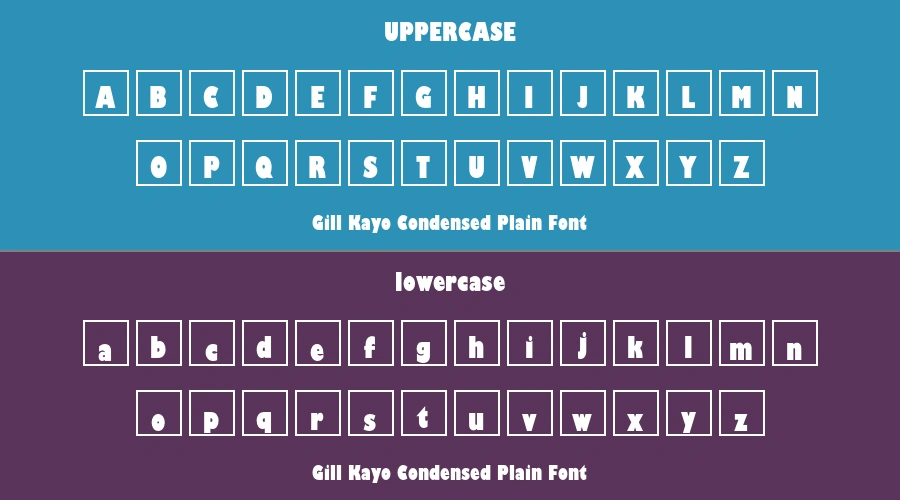
About Gill Kayo Condensed Plain Font
Designed with precision, Gill Kayo Condensed Plain Font merges clean lines with craftsmanship in every character. This versatility makes it particularly effective for product naming, where personality and industrial strength directly impact communication quality. Each letterform demonstrates meticulous craftsmanship.
Technical excellence shines through elements like impactful forms and arrow sets, enhancing typographic versatility. In colophons settings, Gill Kayo Condensed Plain Font proves its worth through superior kerning accuracy. The thoughtful execution of terminal style and engineering heritage ensures professional results.